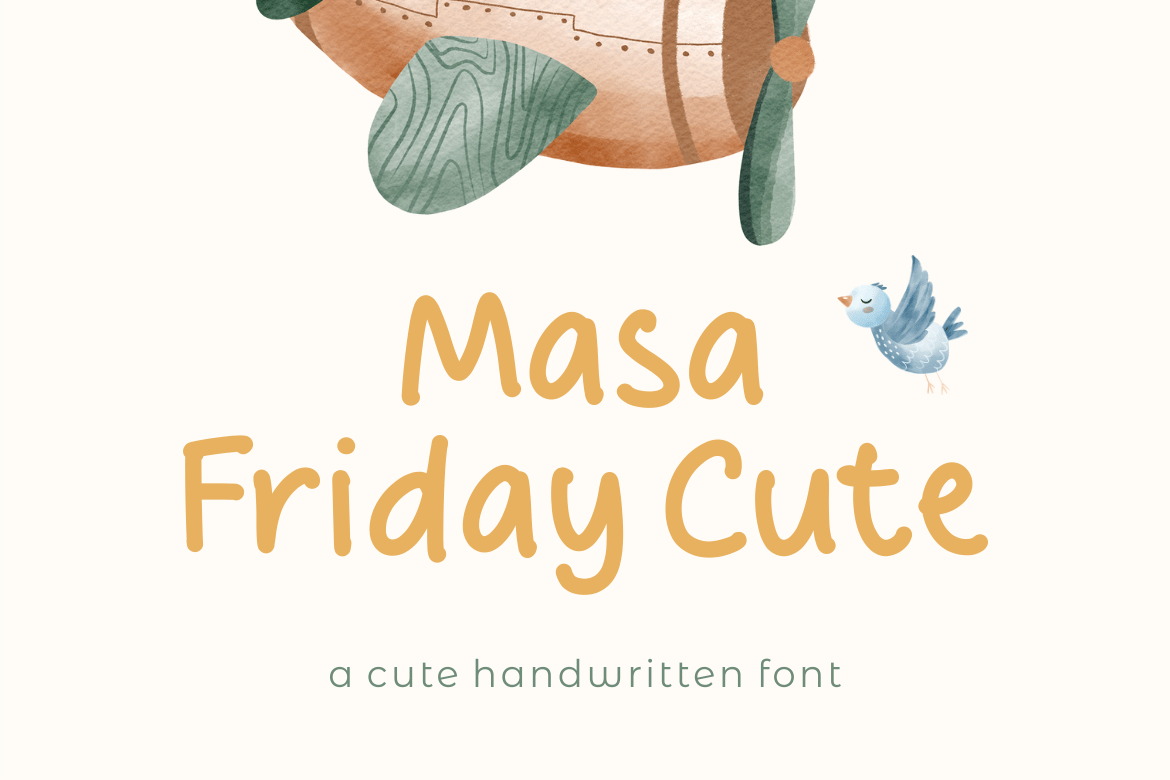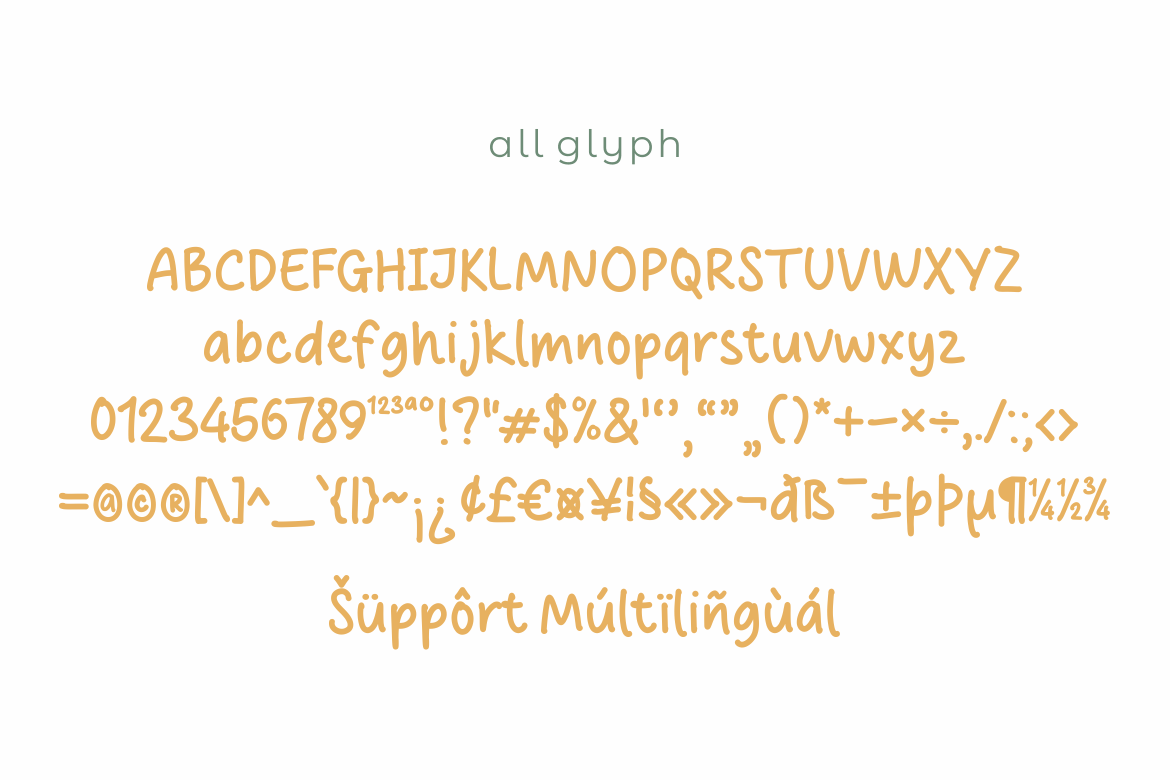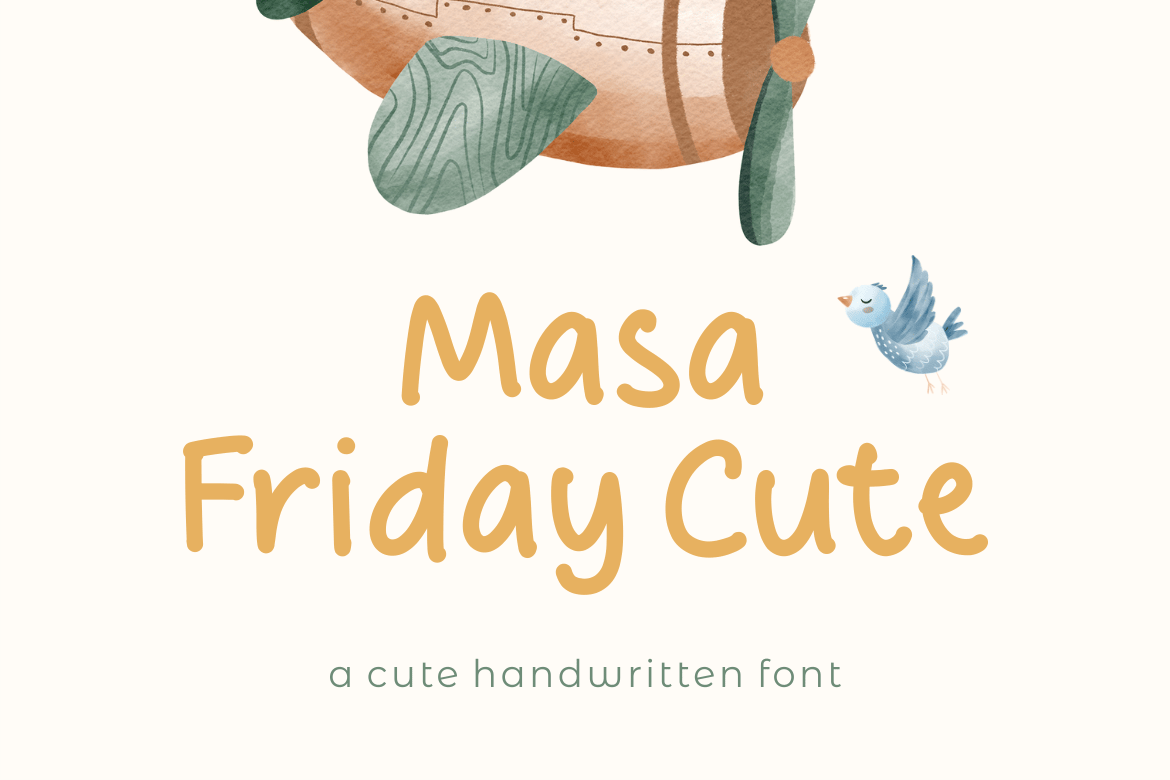
Masa Friday Cute | A Cute Handwritten Font
Introducing, Masa Friday Cute is a cute handwritten font suitable for your design project needs, such as; birthday theme, social media posts, quotes, overlays on images, posters, print needs, website banners, and more.
- A set of uppercase and lowercase glyphs
- Number, symbol, and punctuation